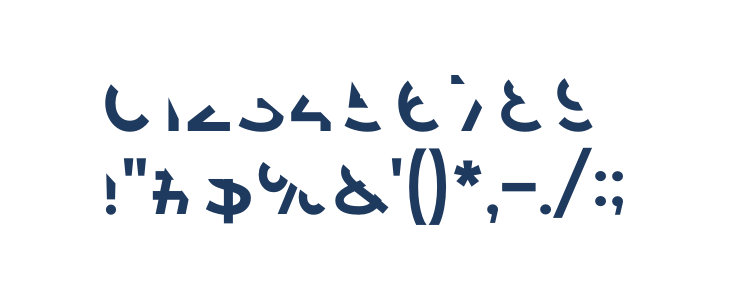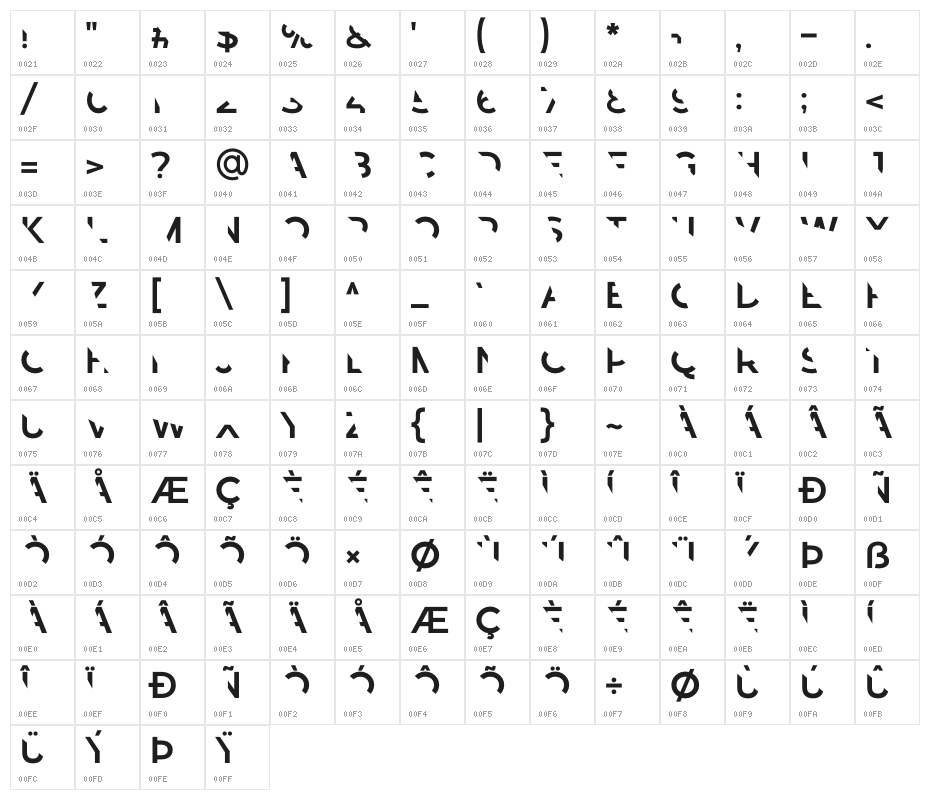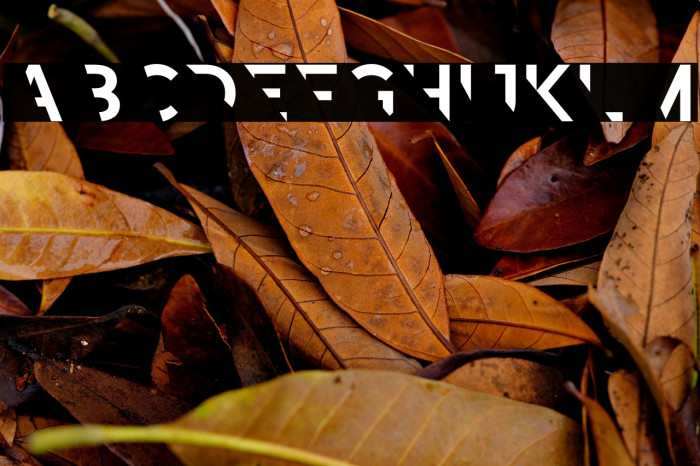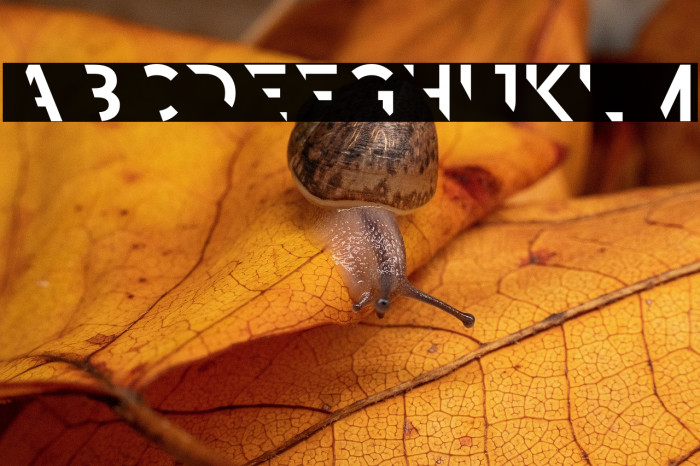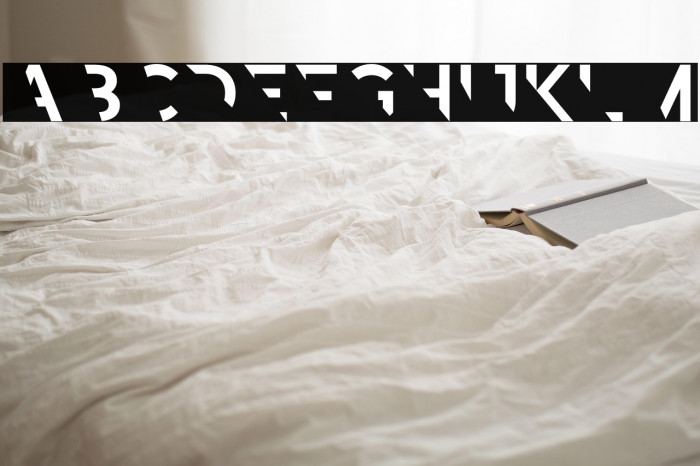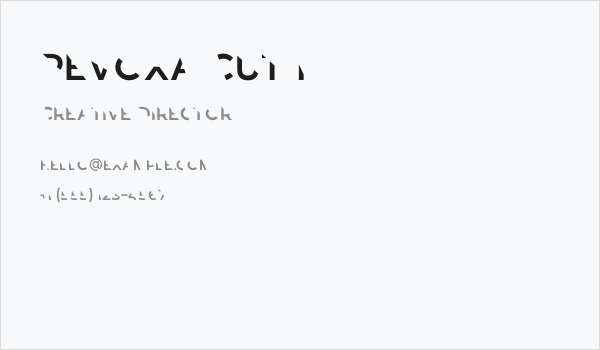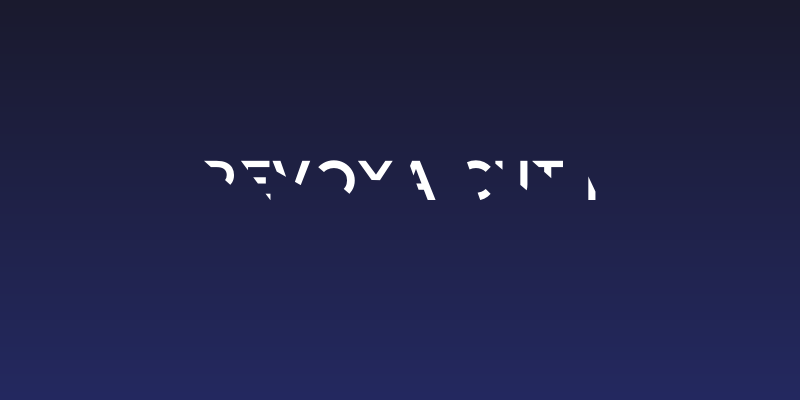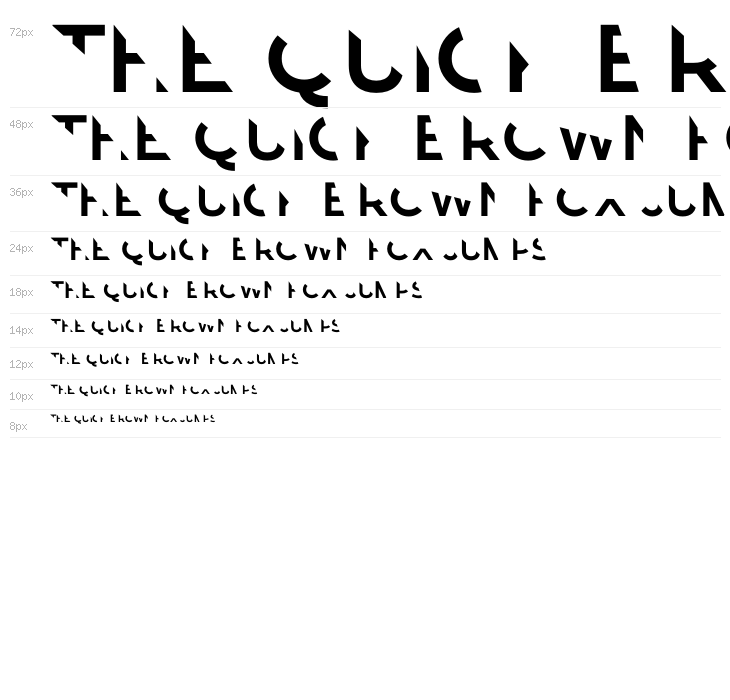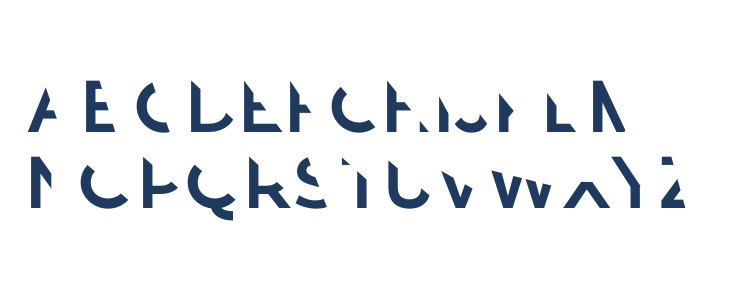
Revoxa Cut 1 Font
Revoxa Cut 1 Description
This font features a bold and modern design with a unique cut-out style that creates a striking visual impact. The characters are constructed with geometric precision, incorporating sharp angles and clean lines. The negative space within each letterform adds an element of intrigue and sophistication, making it ideal for contemporary design projects. The uppercase and lowercase letters maintain a consistent style, while the numerals and special characters complement the overall aesthetic. This font is perfect for creating eye-catching headlines, logos, and branding materials that require a modern and edgy look.
Proposed ProjectsIdeal for branding, logos, headlines, and contemporary design projects.